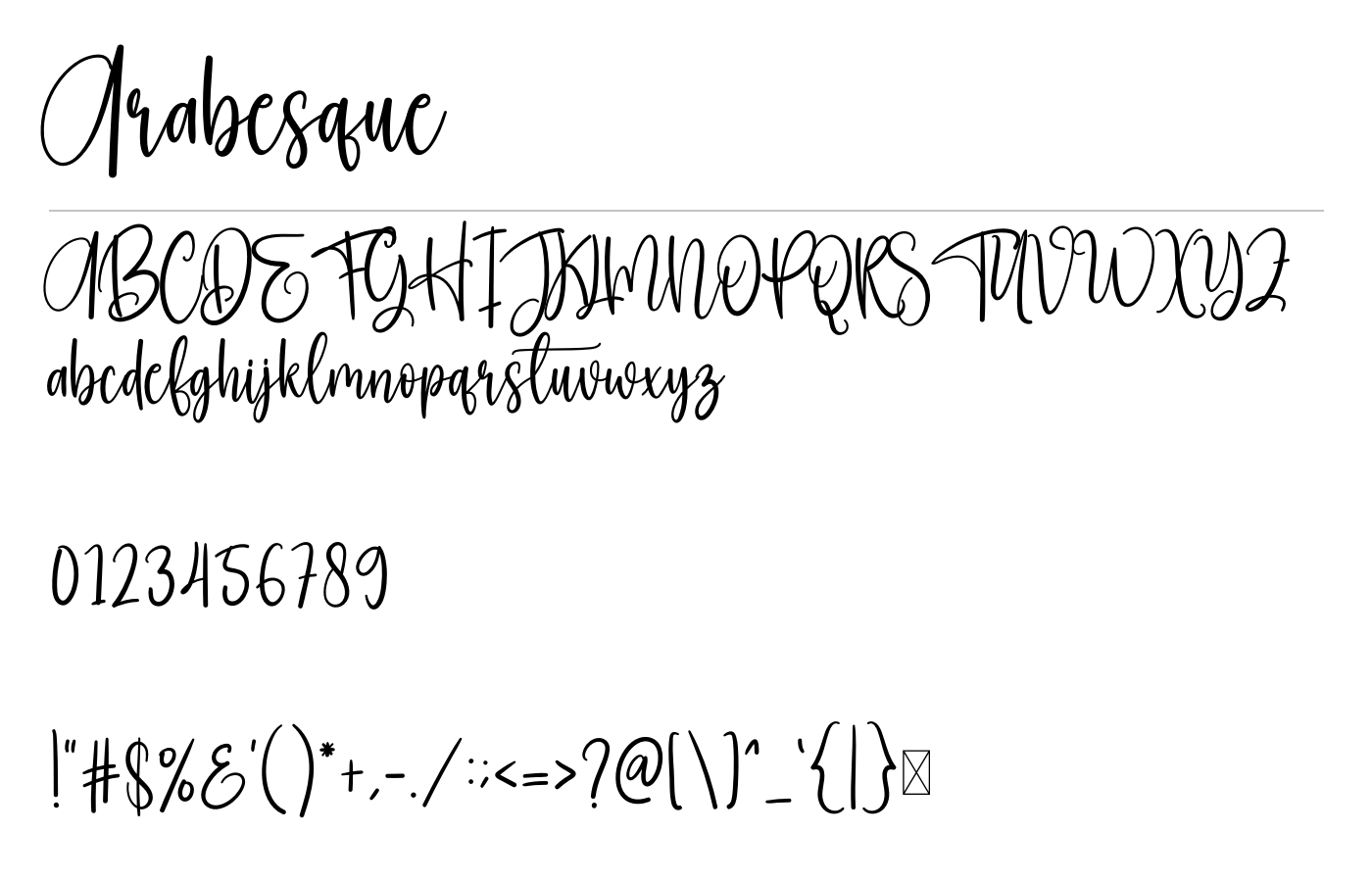
Arabesque is a playful and elegant handwritten script font featuring tall, slender letterforms with whimsical swashes and loops, especially in its uppercase characters. Its light weight and airy spacing give it a delicate, modern feel ideal for creative and feminine branding, invitations, and stylish headlines. This font works best where a personal, artistic touch is needed, adding charm and sophistication without feeling overly formal.
Arabesque Font
About Arabesque Font